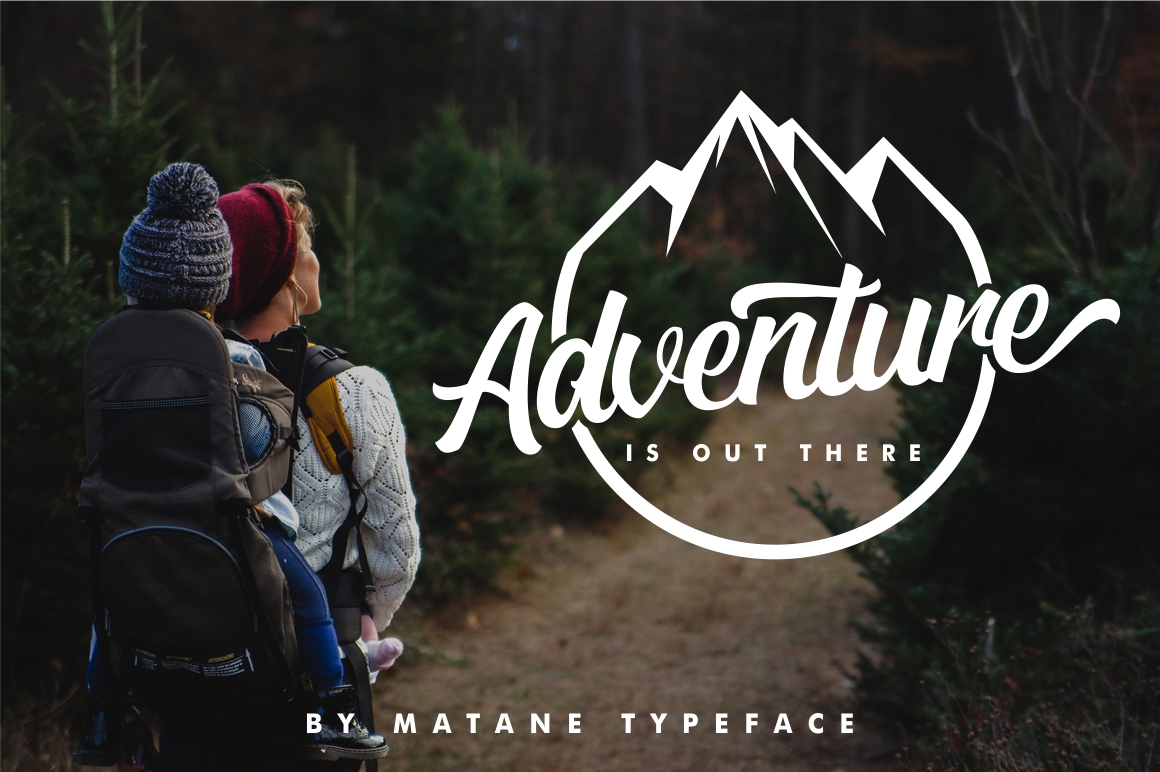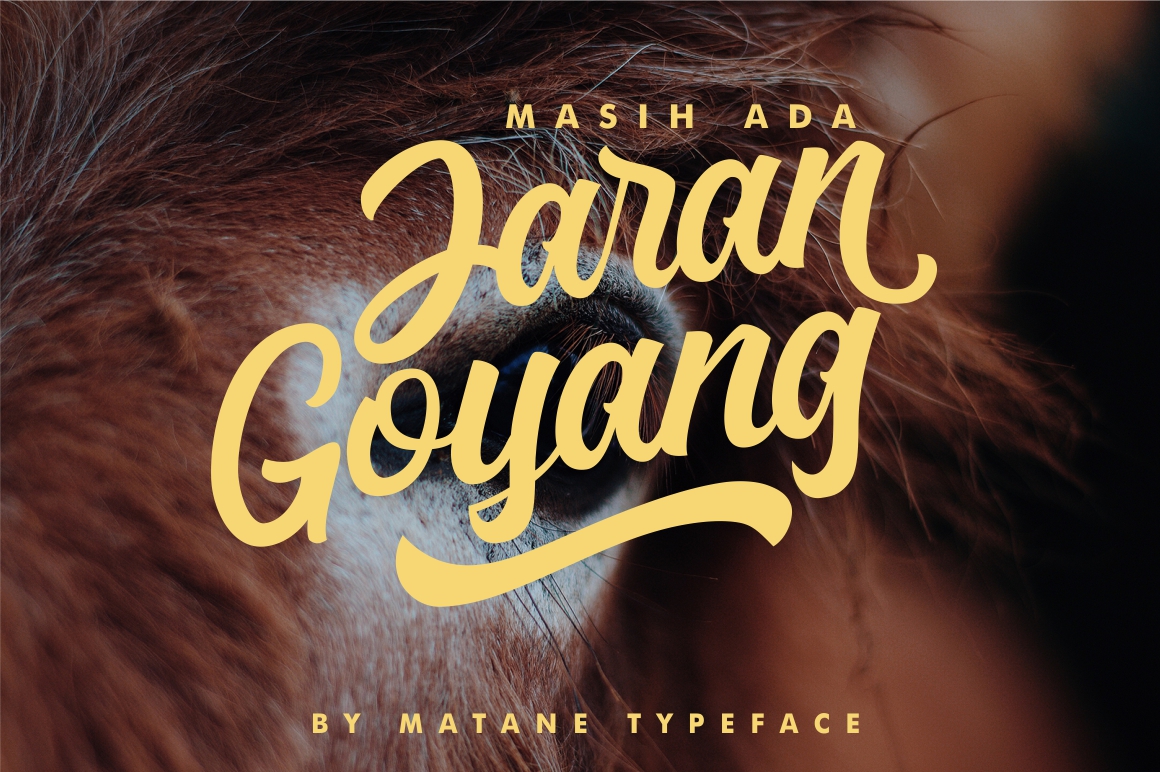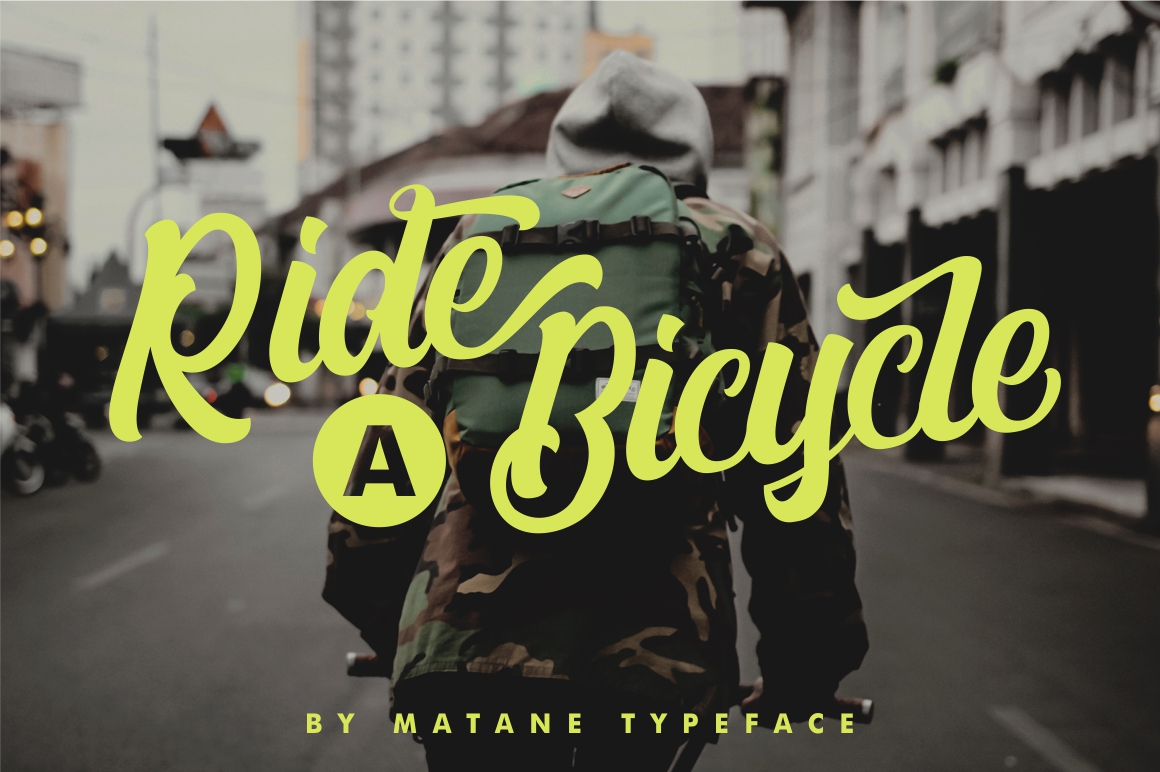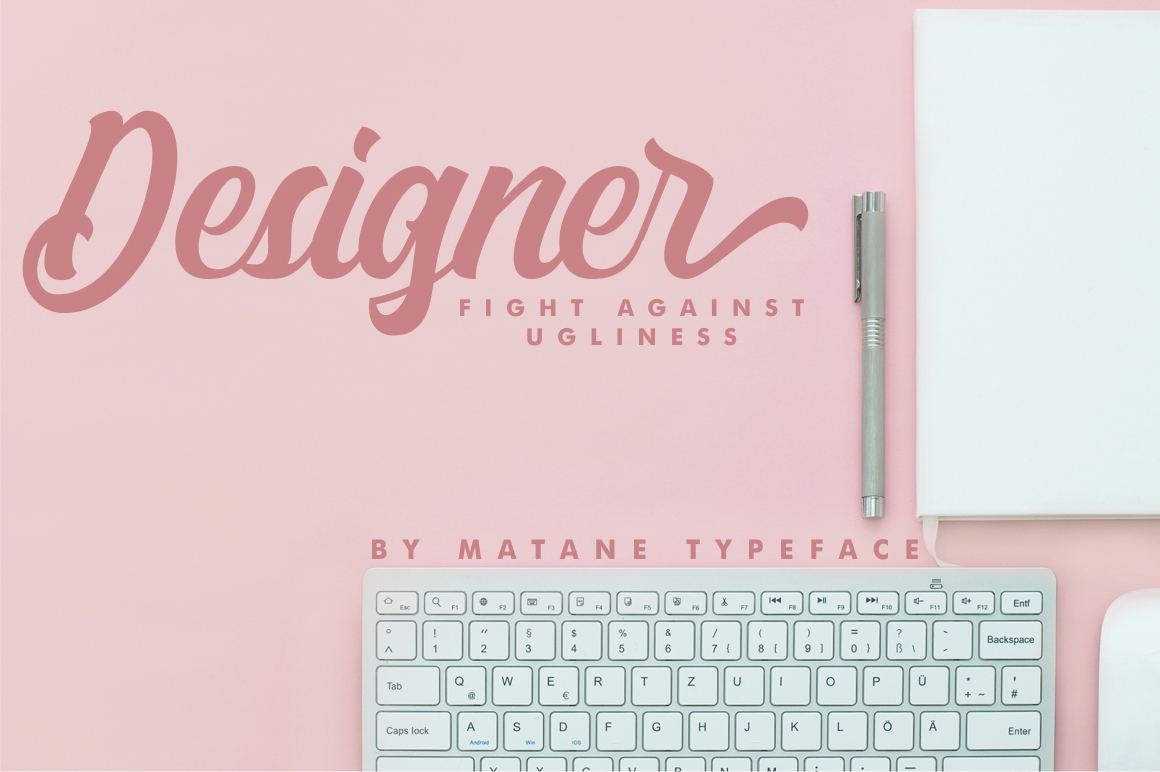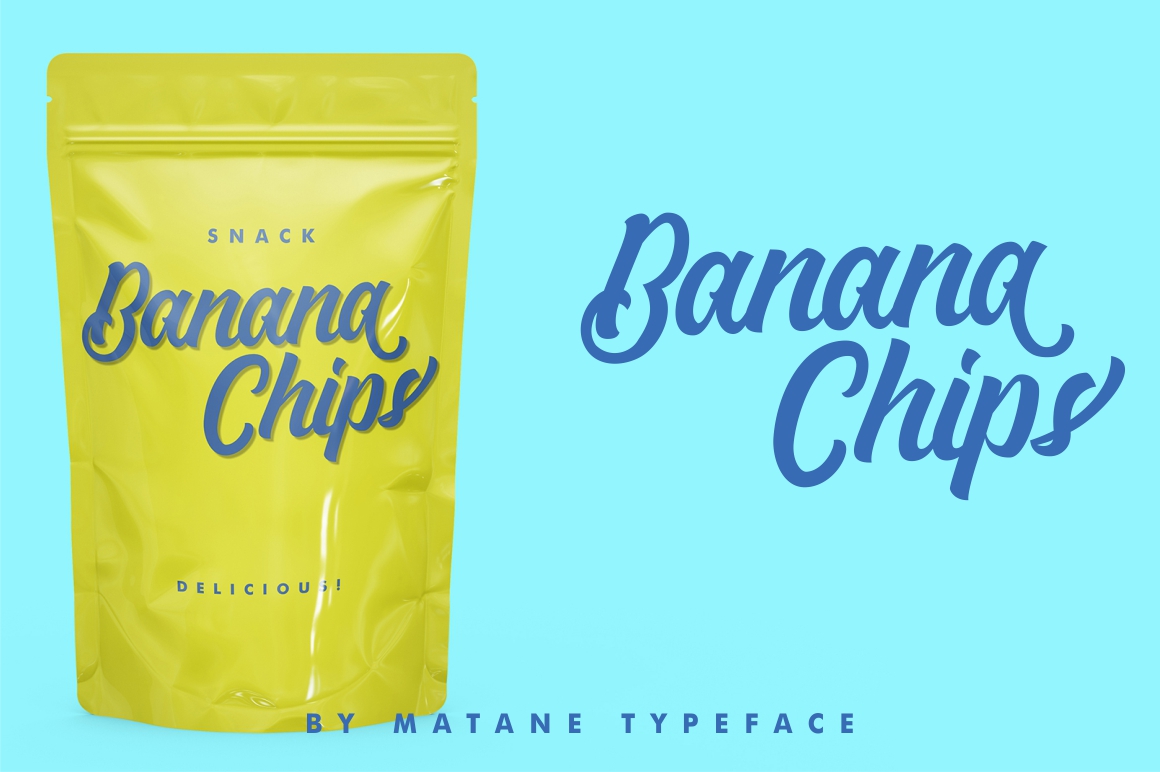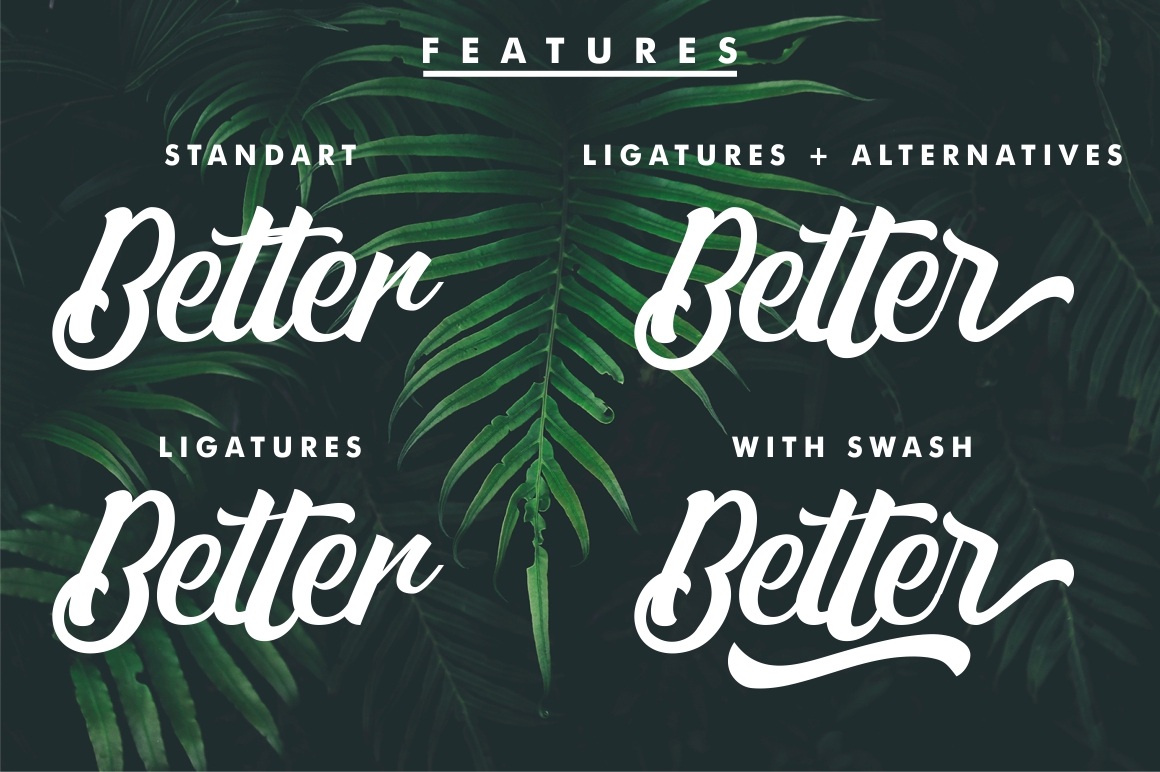
Introduction to Matane Font
Remember that moment when you’re working on a creative project and you stumble upon the perfect font? It’s like a ray of sunshine breaking through the clouds, elevating your design from good to great. For designers, finding the right font can be a game-changer, and that’s exactly what the Matane Font promises to deliver.
This beautiful, hand-painted-inspired typeface is a breath of fresh air in the world of design. With its dynamic and stylish appeal, the Matane Font is sure to give your designs a unique and eye-catching touch that never goes out of style. Whether you’re working on a high-quality project or just need a reliable design resource, this font is a must-have in your toolkit.
Key Features of Matane Font
- High-quality design resource with a unique, creative style perfect for various projects.
- Comes with a transparent background, allowing for easy customization and blending with other design elements.
- Designed to be highly legible at various resolutions and sizes, from 10pt to 100pt, making it suitable for a range of creative projects.
- Features a clean, modern aesthetic that is ideal for use in logos, branding, and typography-based design projects.
Honest Review: Matane Font
I recently had the chance to work with the Matane Font, and I must say it’s been a game-changer for my creative projects. The high quality of this font is immediately apparent, with crisp lines and a professional feel that elevates any design to the next level.
- What works well: ✨ The font is highly customizable, allowing me to tailor it to fit my specific design needs.
- What works well: ✨ The font is also highly legible, making it perfect for body text in any design project.
One thing to keep in mind is that the Matane Font may not be suitable for extremely complex designs, as it can become overwhelming when paired with too many other elements. ⚠️ Additionally, the font’s versatility may make it feel a bit generic at times.
Overall, I’m really impressed with the Matane Font. It’s a solid design resource that I’d highly recommend to anyone looking for a high-quality font for their creative projects. Whether you’re working on a small design project or a large-scale campaign, the Matane Font is definitely worth checking out.
Getting the Most Out of the Matane Font
Some tips for getting the most out of the Matane Font include experimenting with different font sizes and colors, using the font in combination with other design elements, and taking advantage of the font’s transparent background feature.
Common Use Cases for the Matane Font
The Matane Font is a versatile design resource that can be used in a variety of creative projects, including logos, business cards, brochures, and presentations. Its high quality and transparent background make it a great choice for designers who want to create visually appealing and professional designs.